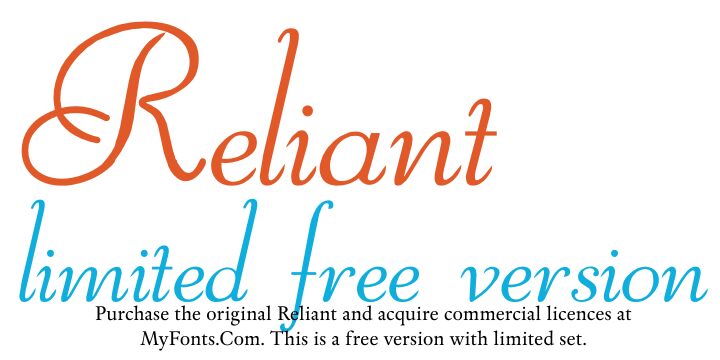
Reliant Limited by Iza of Intellecta Design is a free calligraphic script with grand looping capitals, fine fluid strokes, and extravagant swashes that cross and curl around neighboring letters. The smaller forms stay compact and lightly slanted.
Formal invitation style is the clearest reference, making it well suited to formal printed wedding stationery, high-end event branding, and elegant restaurant menus. It can also lend fashion packaging a decorative signature, but its most convincing role is on invitations, where the sweeping capitals turn names and opening lines into rich ornament.
Reliant is a free interpretation of the classic designs of BernhardSchoenschrift, originally designed by Lucien Bernhard, and Liberty, designed by W.T. Sniffin for ATF in 1927, following Lucien Bernhard’s original designs.
This enhanced OpenType version contains complete Greek and Latin alphabets, including complete Central European, Vietnamese, Baltic, and Turkish character sets, all diacritic signs and punctuation marks, and additional characters belonging to these ranges.
The font also includes a Cyrillic alphabet. Dmitry Greshnev of Green Type helped correct the original Cyrillic alphabet for Cyrillic readers.
It includes an extensive set of ligatures, including stylistic alternates, contextual alternates, and discretionary ligatures, as well as swashes, tail ornaments, fractions, and number ligatures by Iza W.